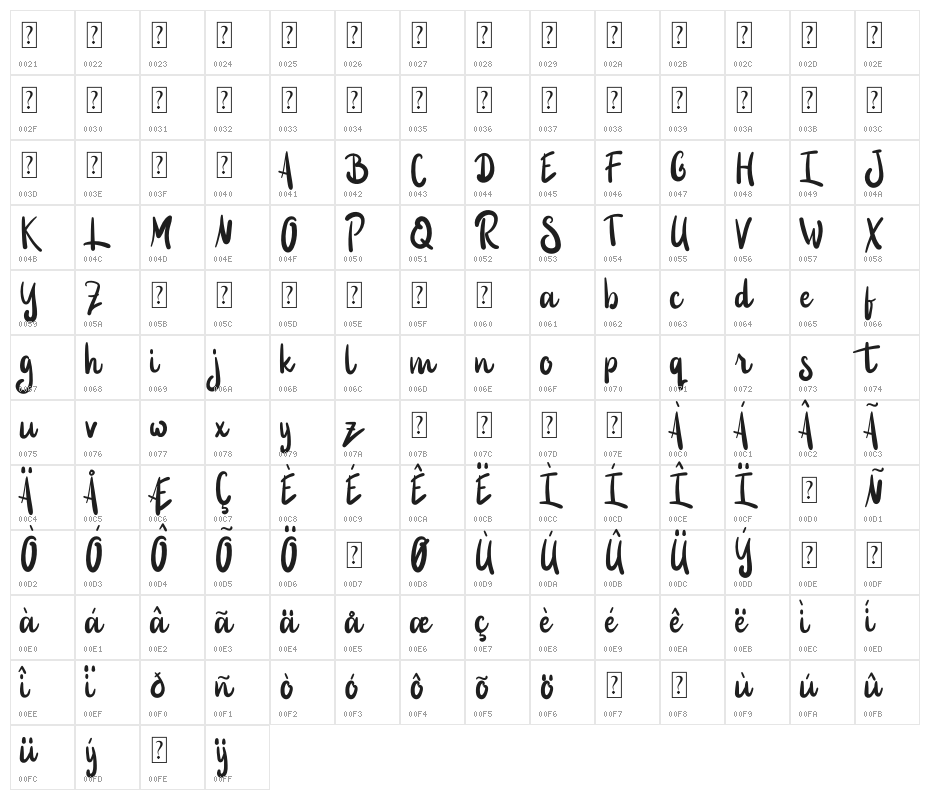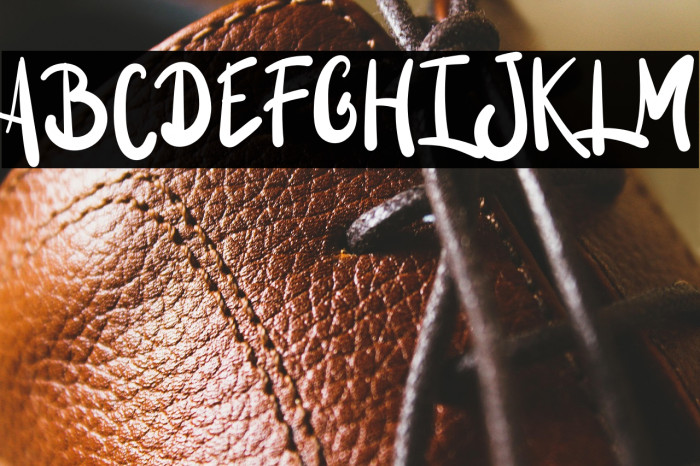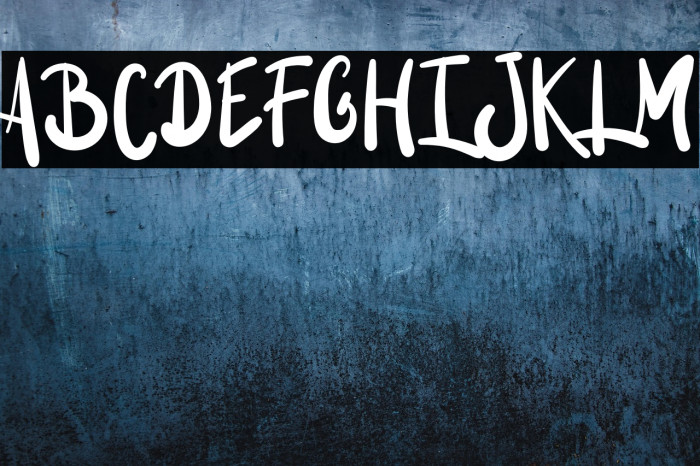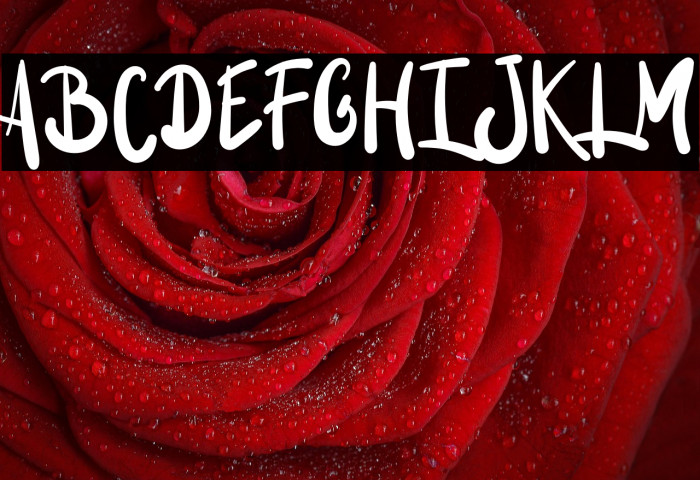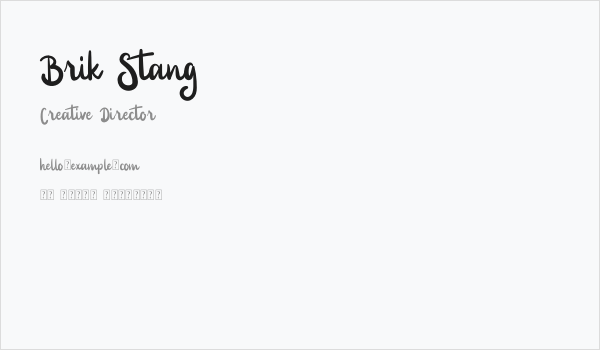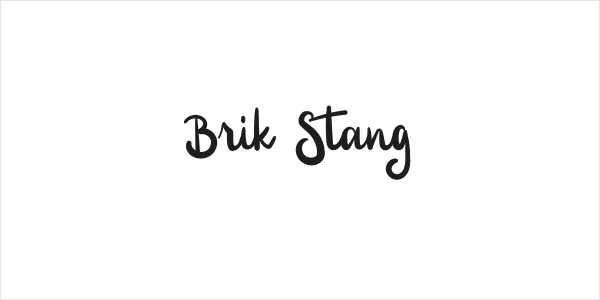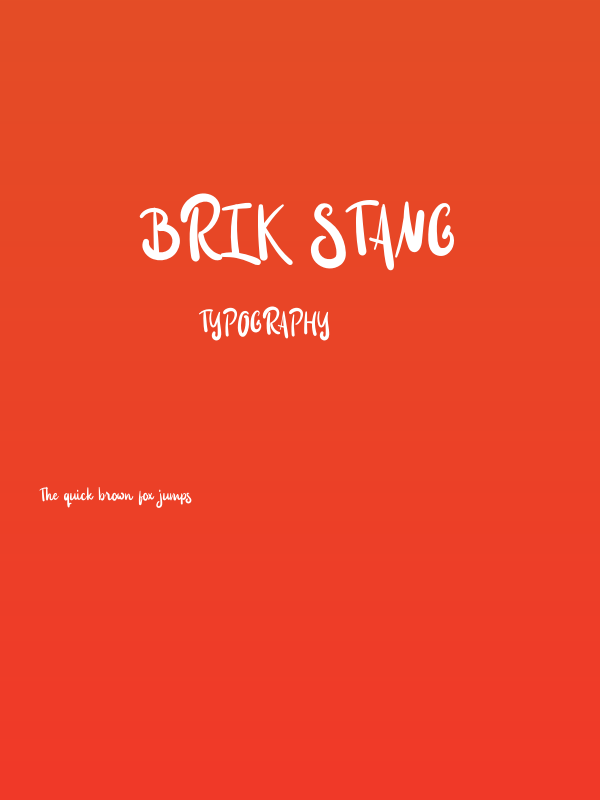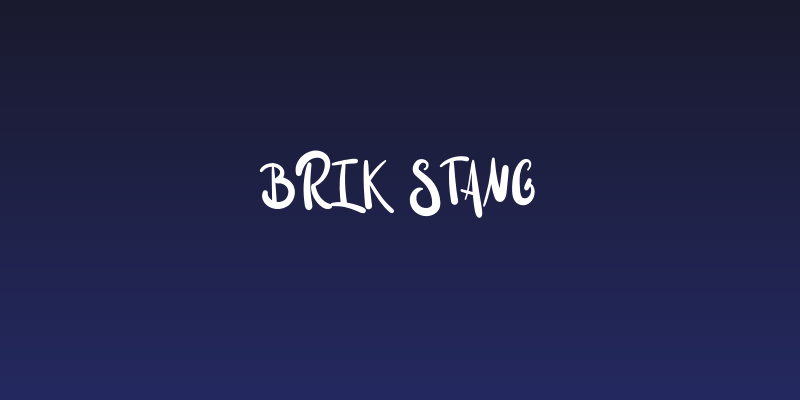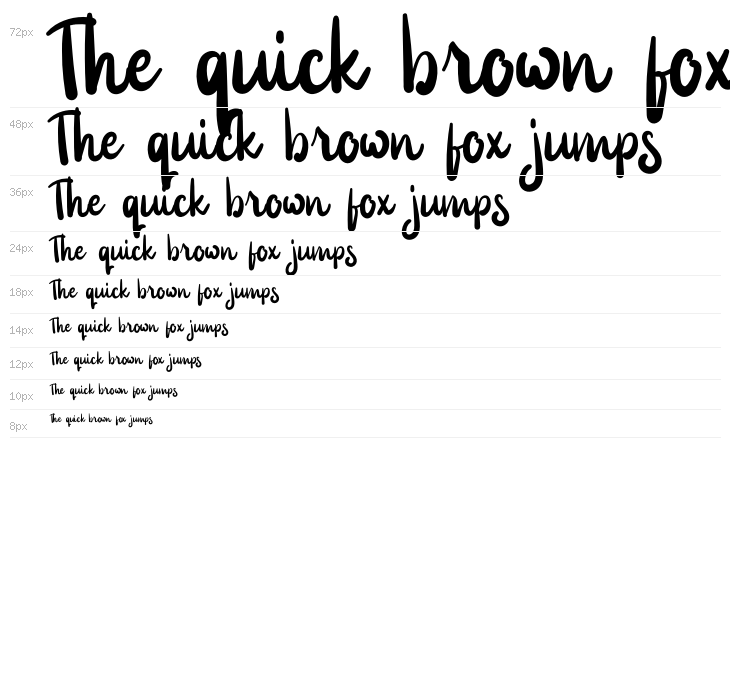
Brik Stang Font
Brik Stang Description
This font features a playful and energetic script style with a hand-drawn appearance. The uppercase letters are bold and slightly irregular, giving them a lively and informal feel. The lowercase letters maintain a consistent flow, with smooth curves and a casual elegance. The strokes are thick, providing a strong presence, while the overall design is approachable and friendly. The font's unique character is enhanced by its slightly exaggerated loops and swashes, making it ideal for creative and expressive projects.
| Proposed Projects | Ideal for greeting cards, invitations, branding, and social media graphics. |